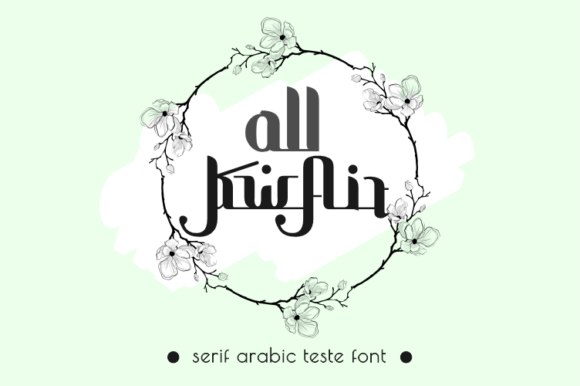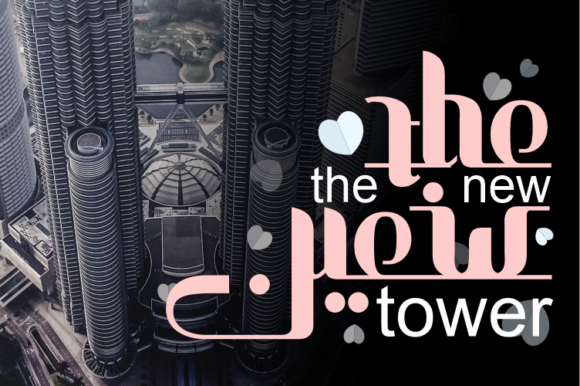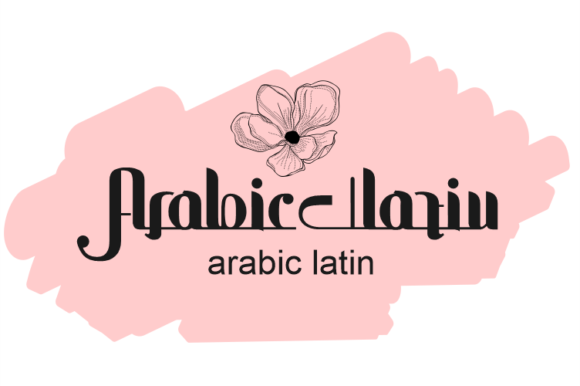
Introduction to Kwait All Font
Kwait All is a spectacular new concept of latin serif font with an arabic taste.
It is PUA encoded which means you can access all of the glyphs and swashes with ease Fall in love with this font and bring your projects to the highest levels.